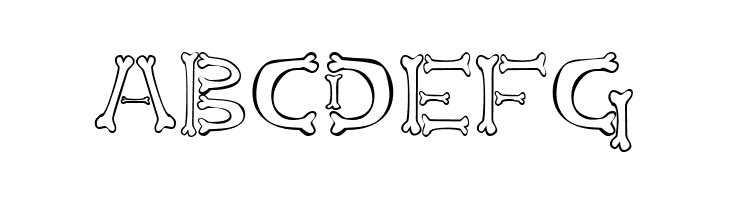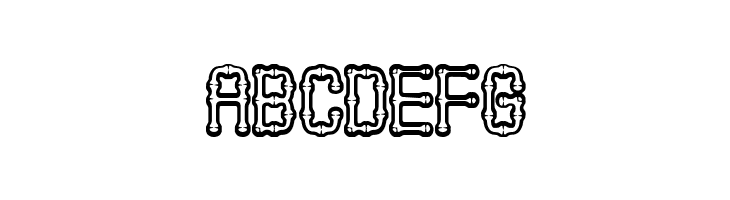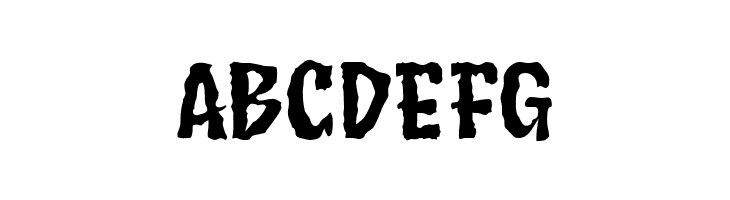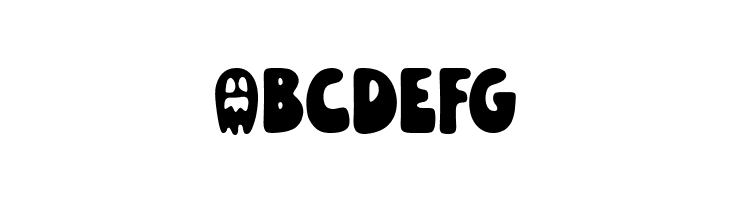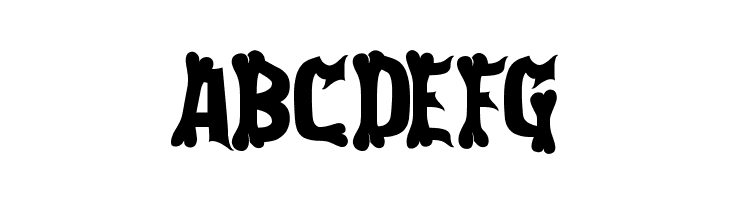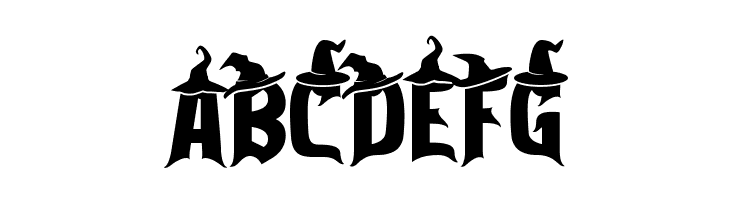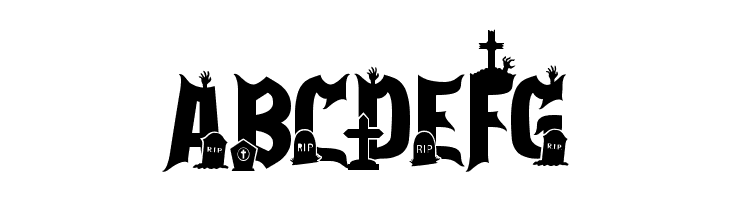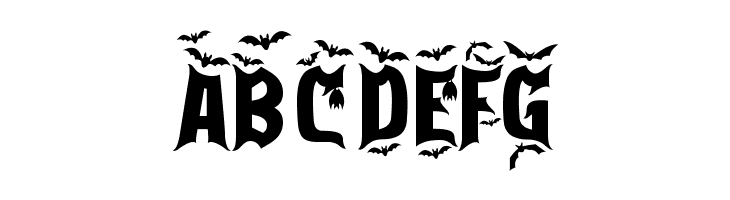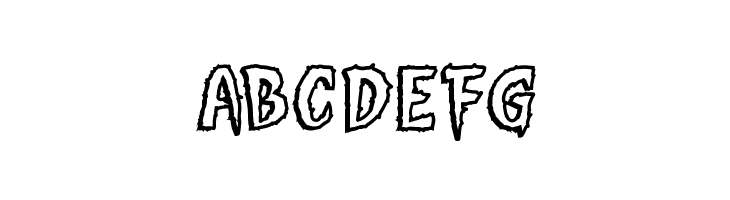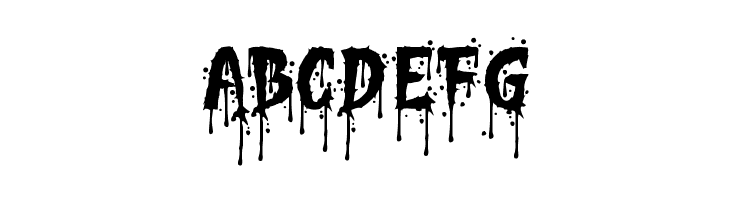
A bold, jagged display font with a hand-crafted, organic look.
Bold, rounded, spooky display font with playful character shapes.
A bold, bone-themed decorative display font with a spooky vibe.
A bold, gothic blackletter font with witch hat decorations.
A horror-themed decorative font with graveyard elements.
Bold, angular display font with bat motifs for a spooky effect.
A jagged, hand-drawn display font with a spooky, playful vibe.
Dripping, horror-themed decorative display font.
Bold, spiky, distressed display font with a horror-inspired look.
A tall, dripping decorative font ideal for horror or Halloween themes.
A bold, horror-themed display font with dripping, textured letterforms.
Bold, dripping letters with ghost motifs for a spooky, playful effect.
Dripping, skull-embellished decorative font for horror or Halloween themes.
A bold, bone-themed decorative font with a spooky, playful style.
A bold, decorative font with an organic, splattered appearance.
A bold, gothic-style font with jagged edges and decorative flourishes, perfect for dramatic themes.
A bold, dripping font with a horror-themed aesthetic, perfect for spooky designs.
A bold, jagged font with a distressed, horror-themed style.
A bold, angular font with sharp edges and a modern, edgy style.